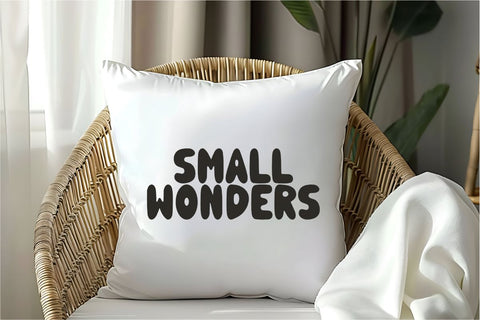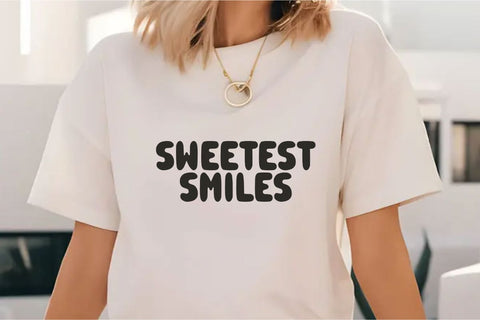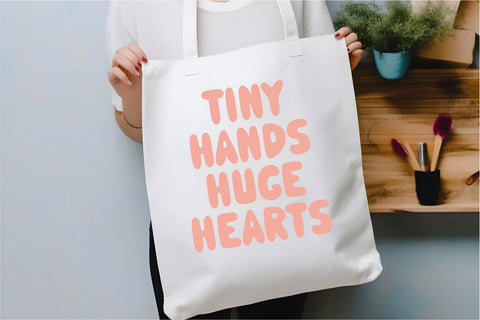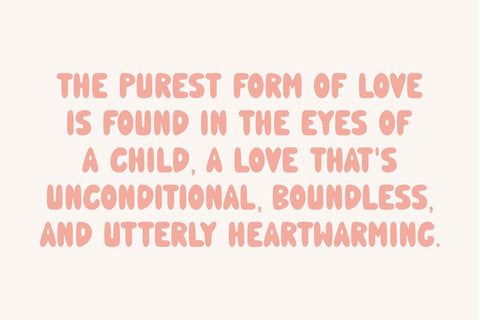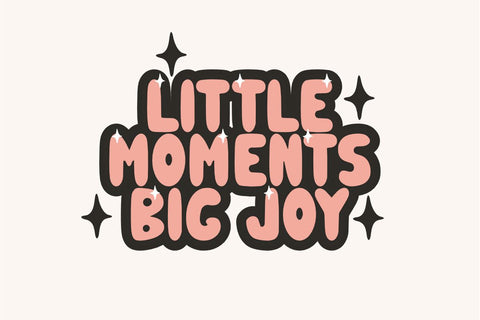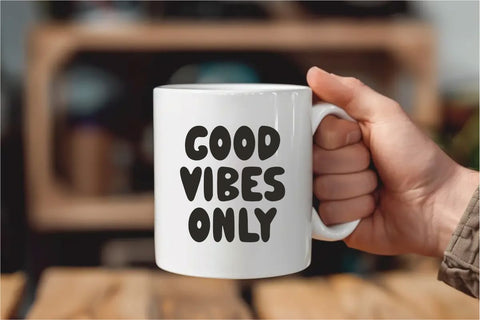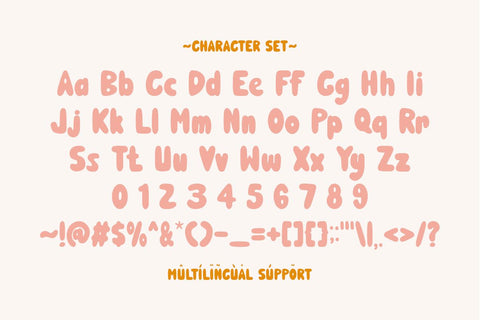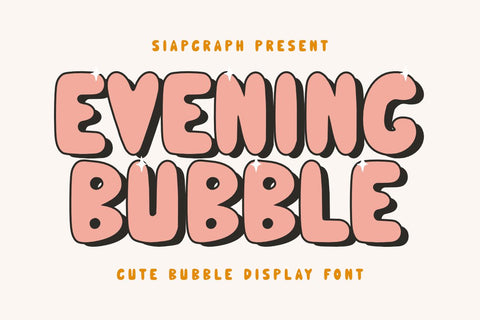
Evening Bubble - Fun Bubble Font
Bring your ideas to life with Evening Bubble, a charming and cute bubble font that exudes playfulness! Its soft curves and bold appearance are perfect for creating eye-catching headlines, posters, social media graphics, and branding. Add a dreamy touch to your designs with this delightful font that’s both fun and versatile.